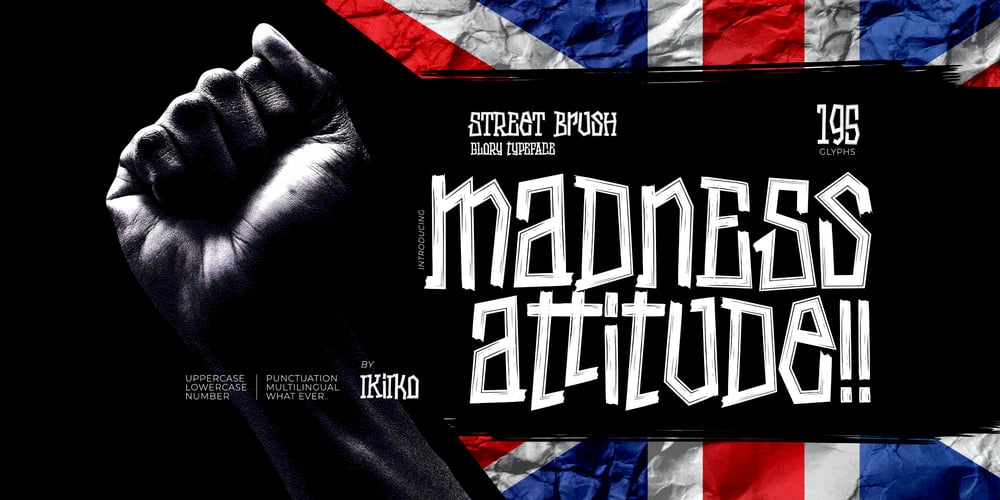
Madness Attitude Font Family was designed by Andhika Pradana and published by IKIIKOWRK. Madness Attitude contains 1 styles and family package options. Proudly present Madness Attitude – Street Brush Type, created by ikiiko.Inspired by the brush strokes on the street, where the raw, rough lines show a strong character of freedom expression. The font has a sloppy & dirty stroked texture, so it fits perfectly for making a poster, magazine layout, youth stuff, sleeve cover, party flyer, quotes, or simply as a stylish text overlay to any background image.What’s Included? Uppercase & Lowercase Numbers & Punctuation Multilingual Support Works on PC & Mac Enjoy our font and if you have any questions, you can contact us by email : ikiikowrk@gmail.com